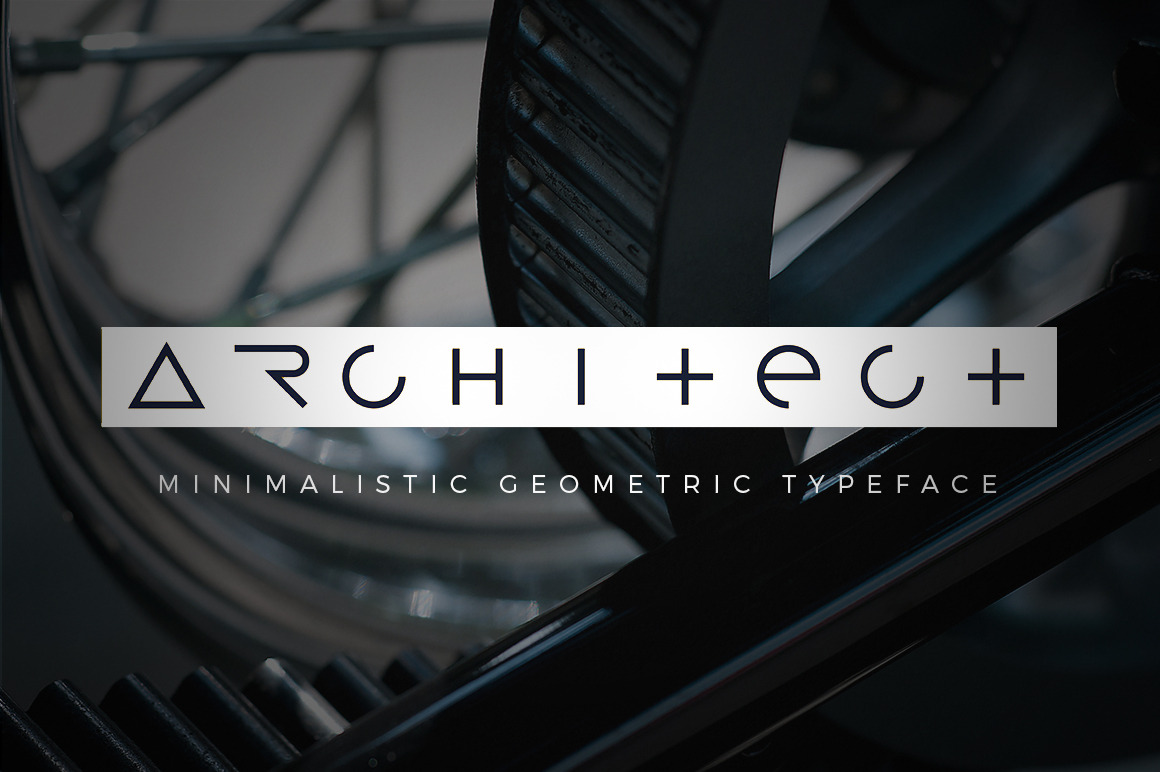
Architect sans serif font
Architect is moder minimalistic and decorative sans serif font for comercial and personal use. Perfect for brochures, headers and advertising